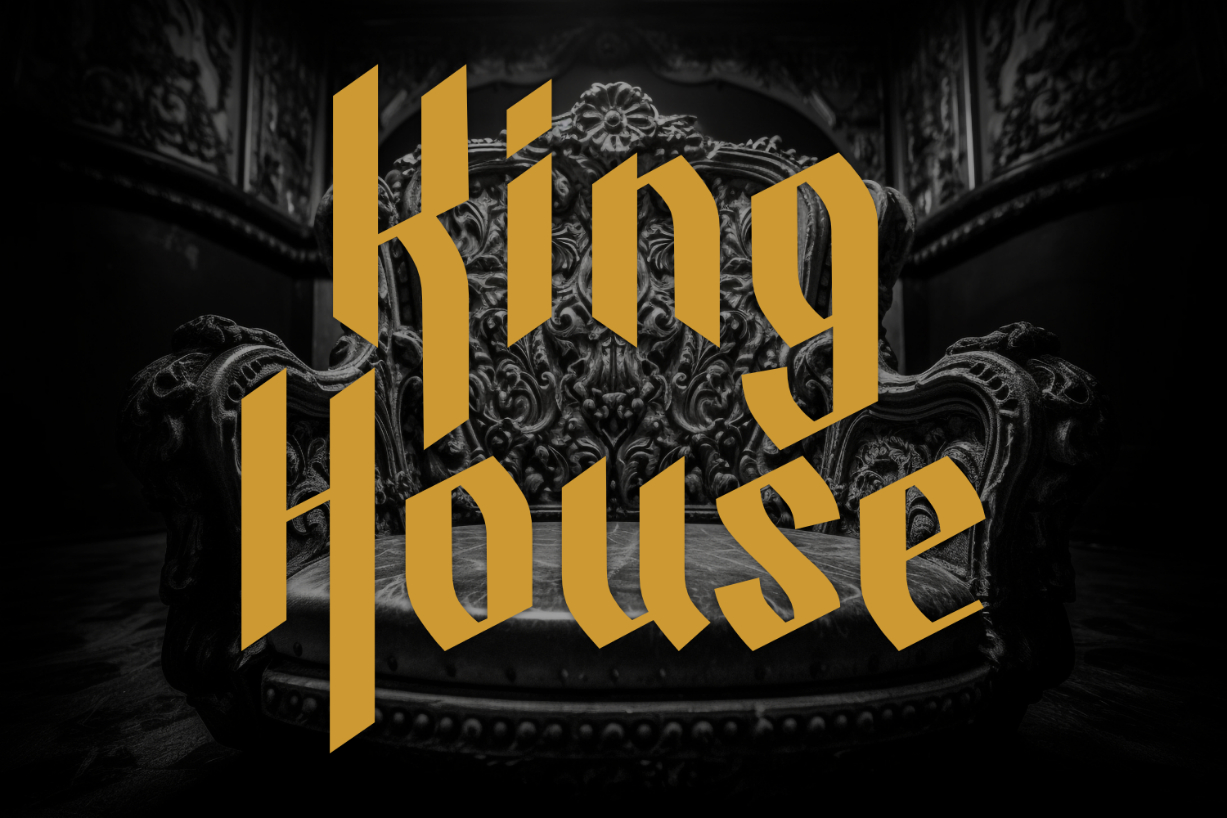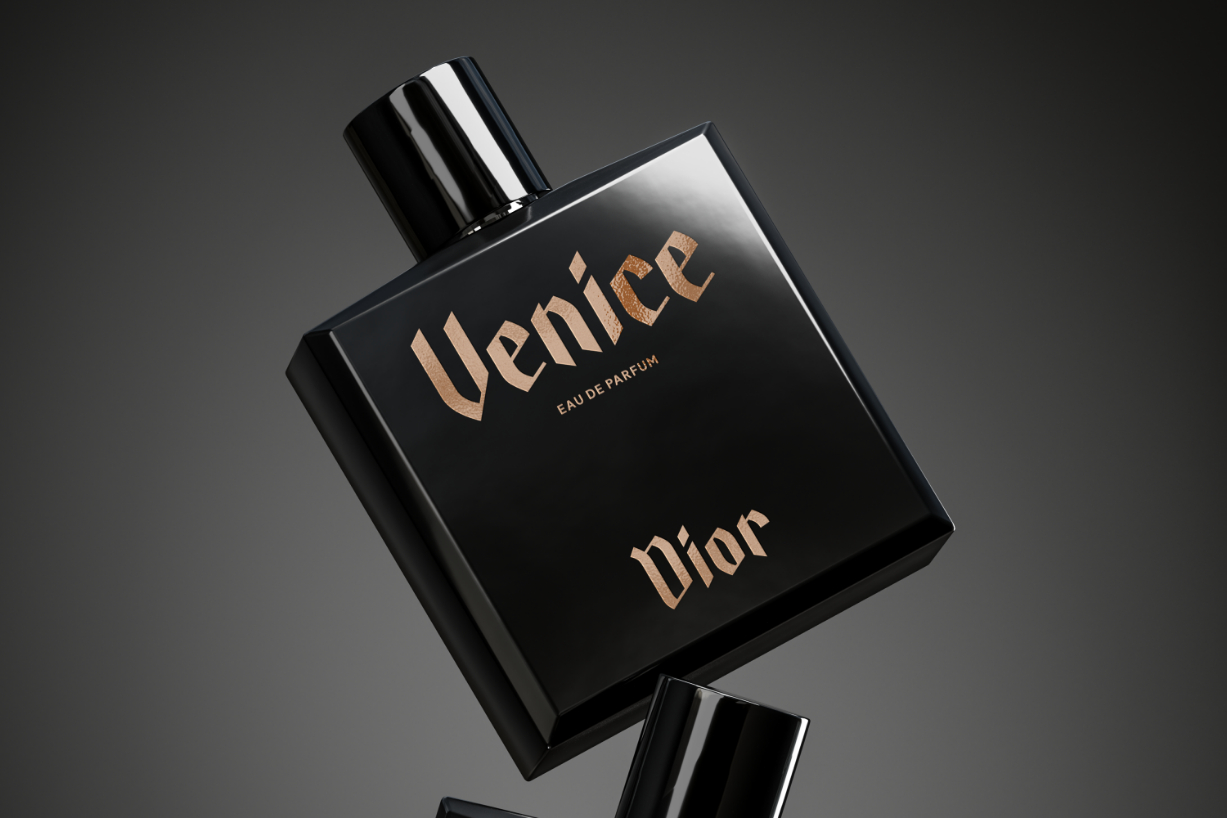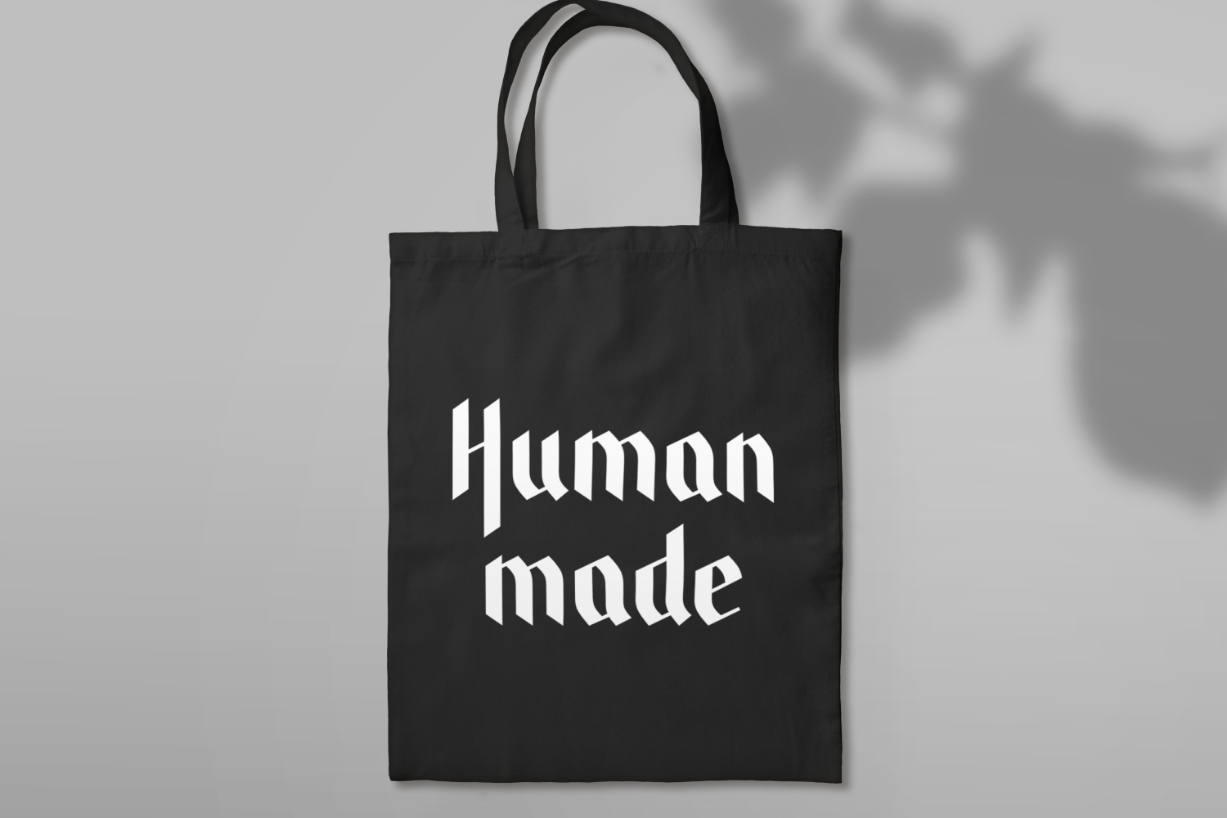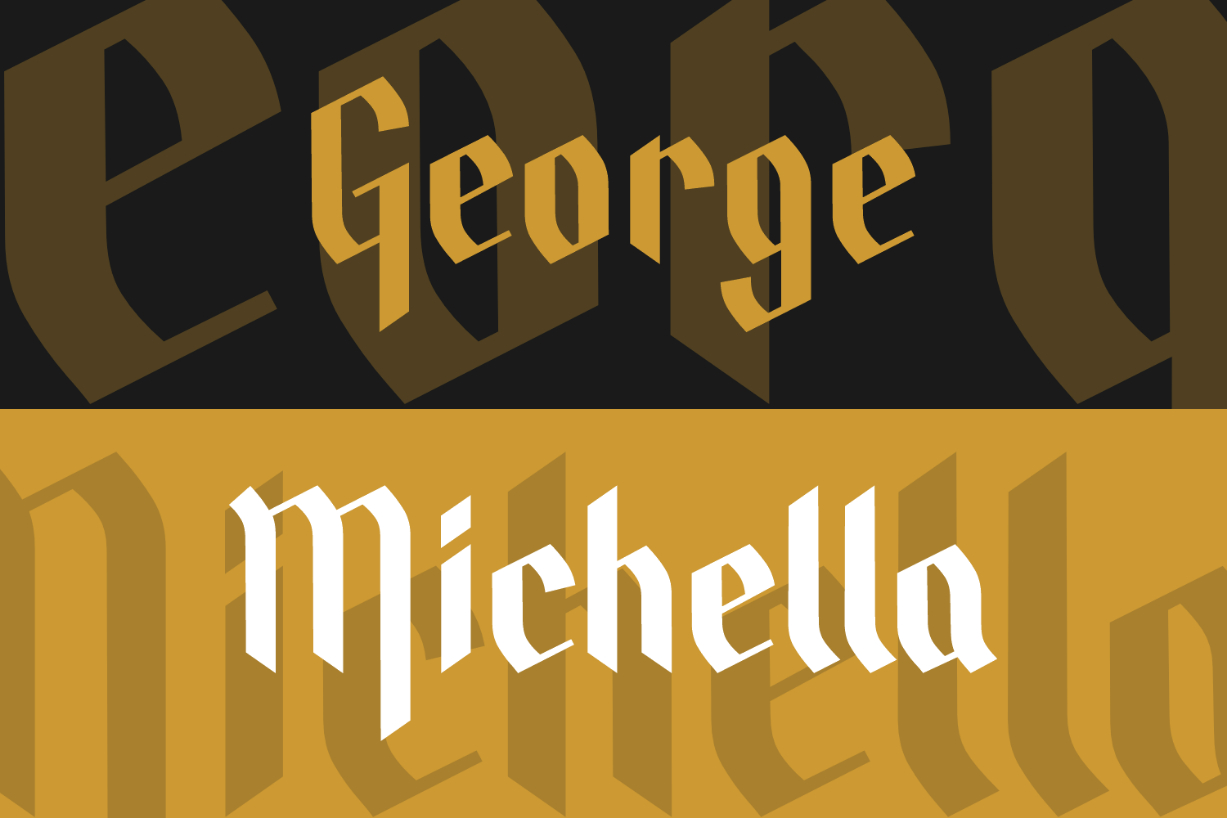
King House Font
About King House Font
King House is a stylish and elegant blackletter font. Add a classy look to your typography designs with this outstanding typeface that will take any design project to the highest level! It looks fabulous on logos, advertisements, posters, book covers, headers, titles, and more.